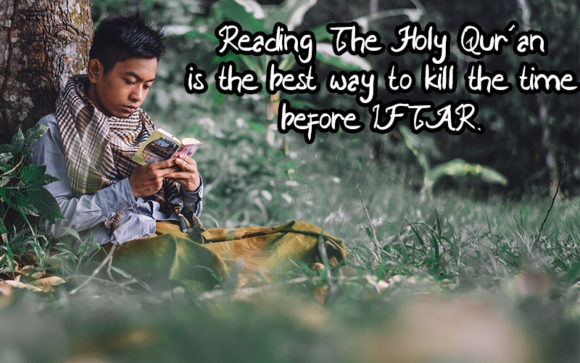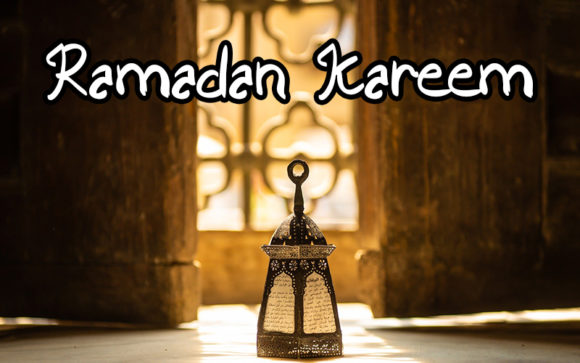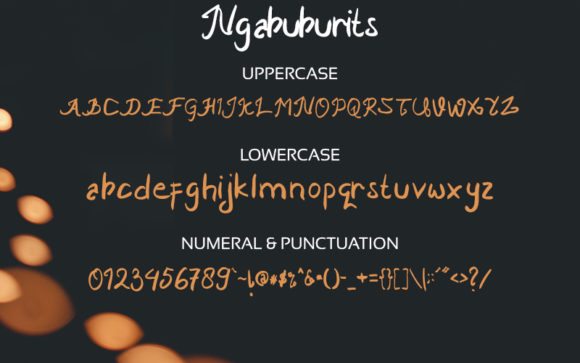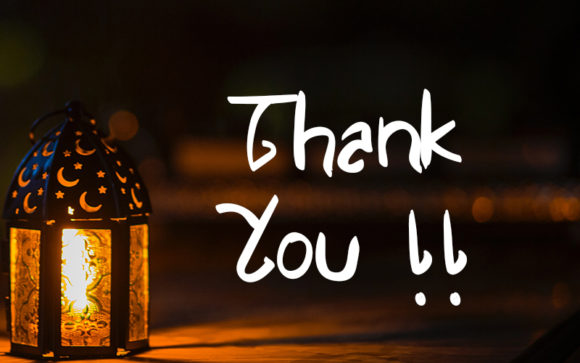
Introduction to Ngabuburits Font Font
Fonts play a crucial role in design, and the Ngabuburits Font font is a typeface that brings both character and versatility to any project. Whether you’re working on a branding project, a website, or a print design, the Ngabuburits Font font offers a unique style that can elevate your work.
Ngabuburits feels equally charming and elegant.
This fantastic handwritten font is best suited for headlines of all sizes, as well as for blocks of text that have both maximum and minimum variations Whether itβs for web, print, moving images or anything else β Ngabuburits will look spectacular.
Key Features of Ngabuburits Font Font
Why Choose Ngabuburits Font Font?
The Ngabuburits Font font is more than just a typeface β it’s a design tool that helps you communicate your message with style and clarity. Its unique character set and versatile design make it suitable for a wide range of applications, from elegant invitations to bold headlines.
With its carefully crafted letterforms and balanced proportions, the Ngabuburits Font font ensures readability and visual appeal across all mediums.
What makes Ngabuburits Font font special?
The Ngabuburits Font font stands out with its unique design, exceptional readability, and versatility across various design applications.